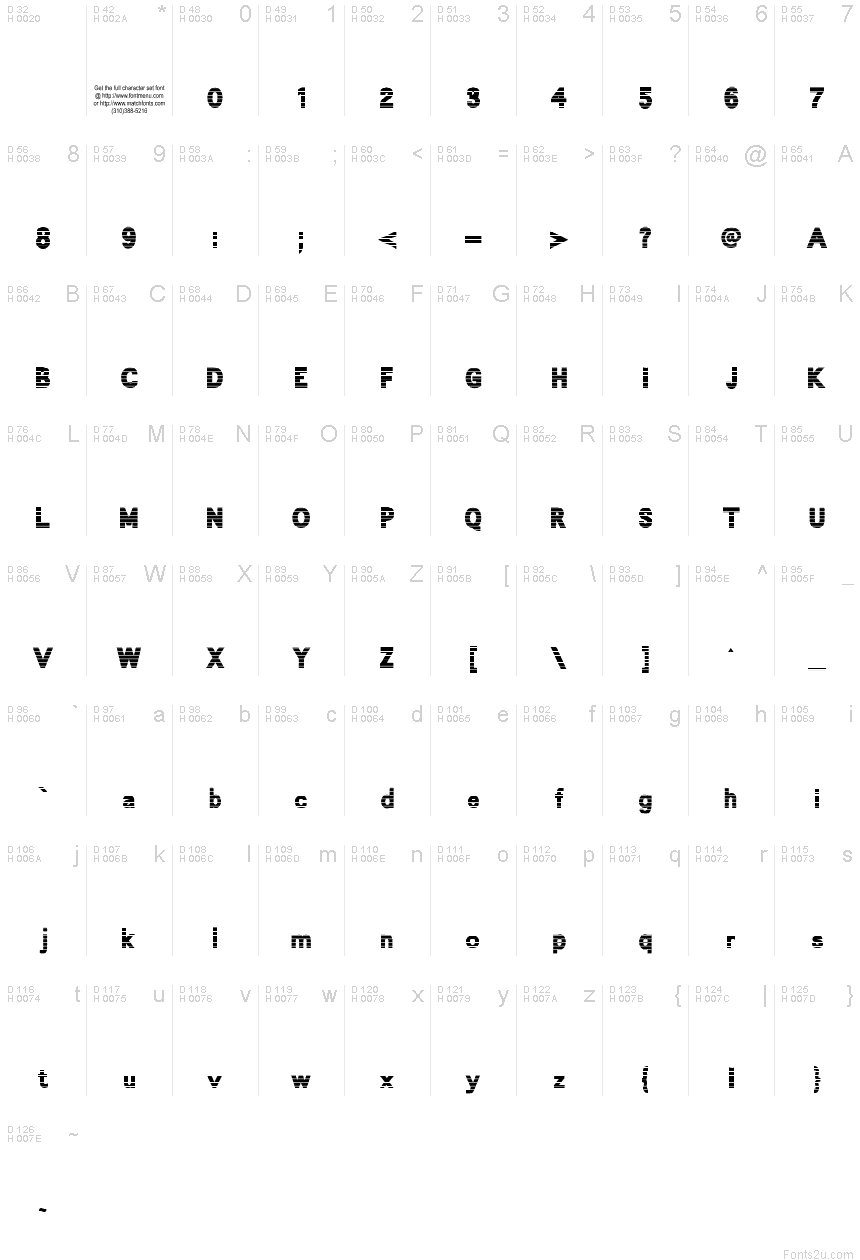
Big Bacon Tryout
Big Bacon font by M. Bujardet is a free decorative display typeface with a bold, striped twist. Heavy, blocky letters are sliced into crisp horizontal bands, so text feels like it’s vibrating across the line—part neon sign, part sizzling grill. The Bernur font family roots give it a sturdy, geometric structure, while the alternating black and white bars add a loud, kinetic rhythm that instantly pulls the eye on posters and titles.
Using Big Bacon, you can shout headlines for food trucks, retro party flyers, club nights, sports events, bold packaging, or social media promos that need real punch. This free font thrives at large sizes where the banded texture reads clearly and creates a built‑in pattern. For body copy, pair it with a simple, untextured sans serif from the Bernur family or any neutral grotesk to keep layouts clear and readable.